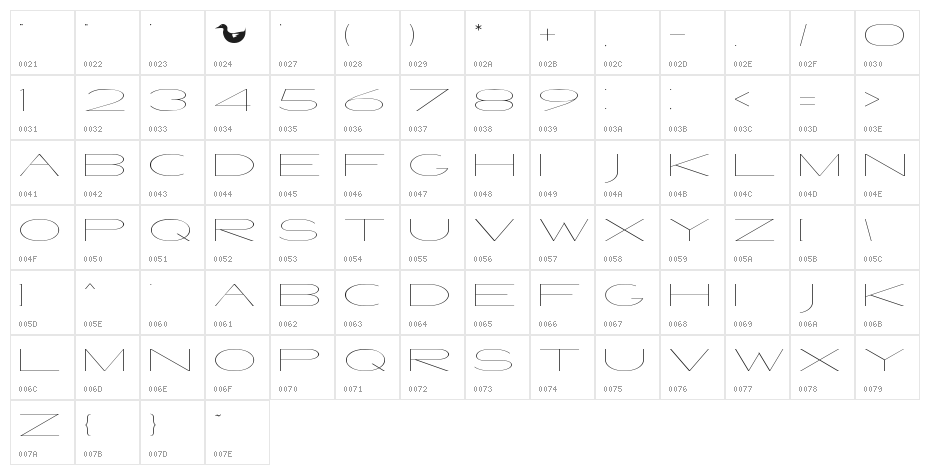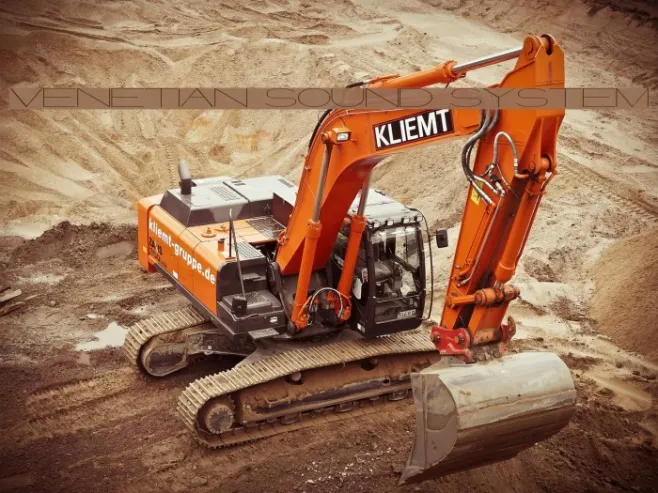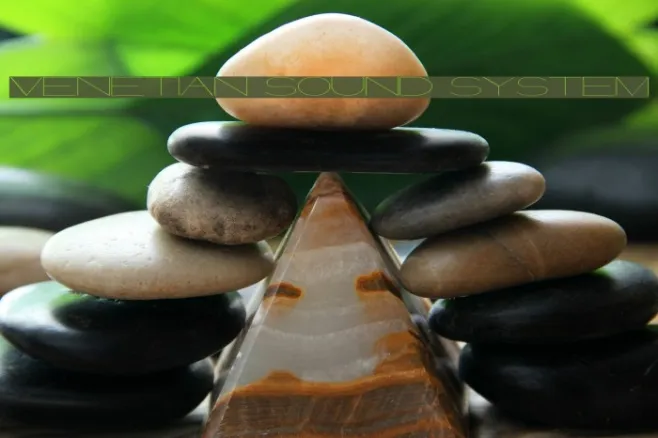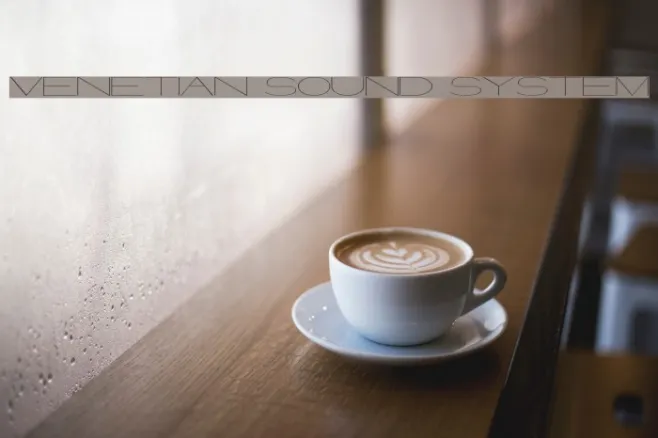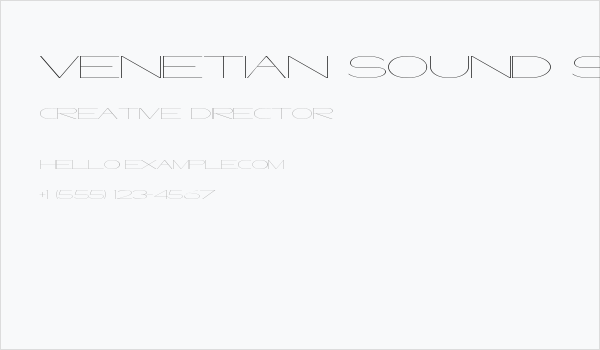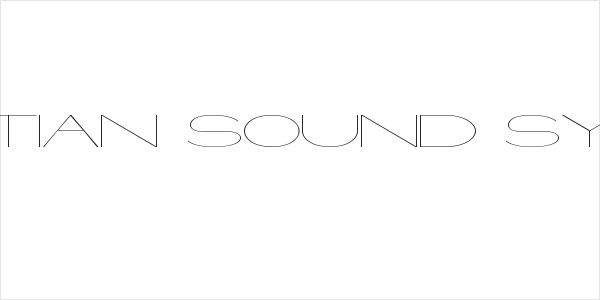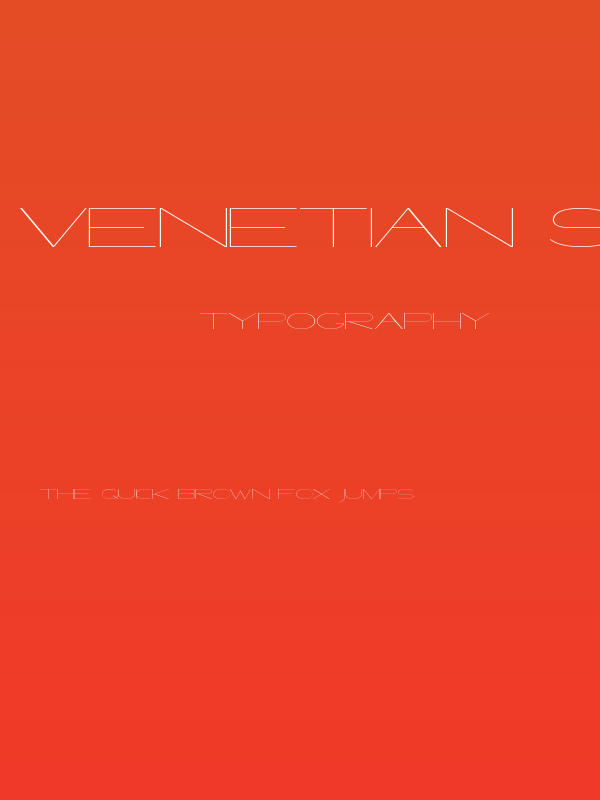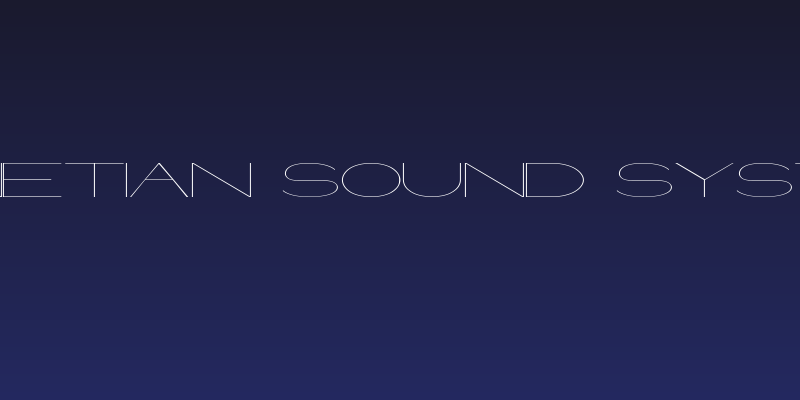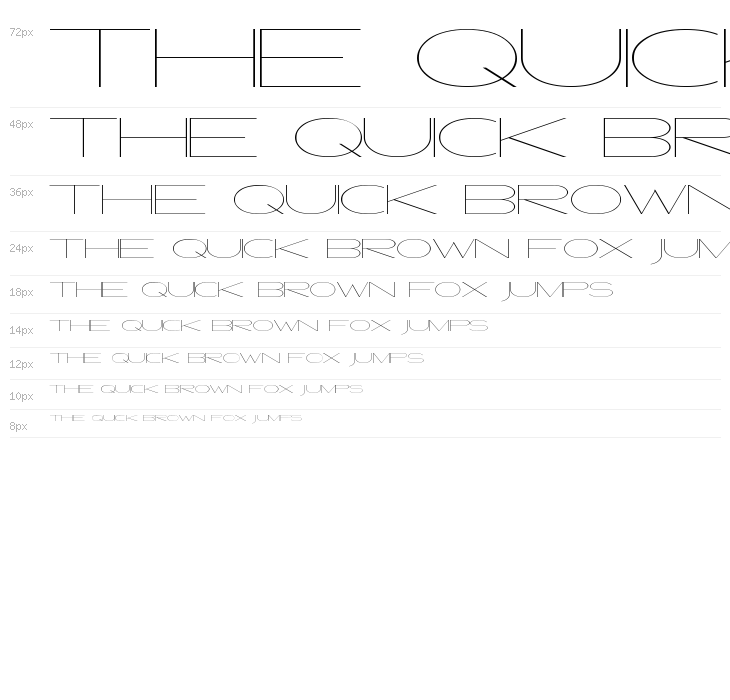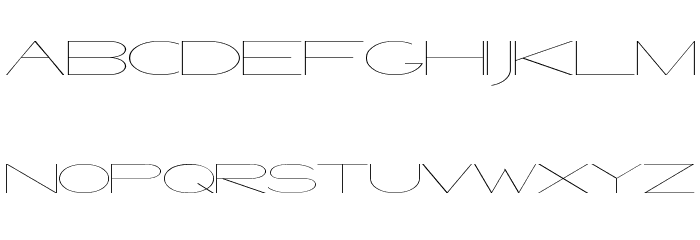
Venetian Sound System Font
Venetian Sound System Description
This font features a sleek, ultra-modern design with thin, elongated lines that create a sense of elegance and sophistication. The characters are constructed with minimalistic strokes, giving them a futuristic and airy appearance. The uppercase and lowercase letters maintain a consistent style, with sharp angles and a geometric structure that enhances readability while maintaining a unique aesthetic. The numerals and special characters follow the same design principles, ensuring a cohesive look across all text elements. This font's distinctive style makes it suitable for projects that require a contemporary and stylish touch.
| Use Case | Logos, Headlines, Branding |
| Proposed Projects | Ideal for branding, high-end fashion magazines, modern art exhibitions, and luxury product packaging. |